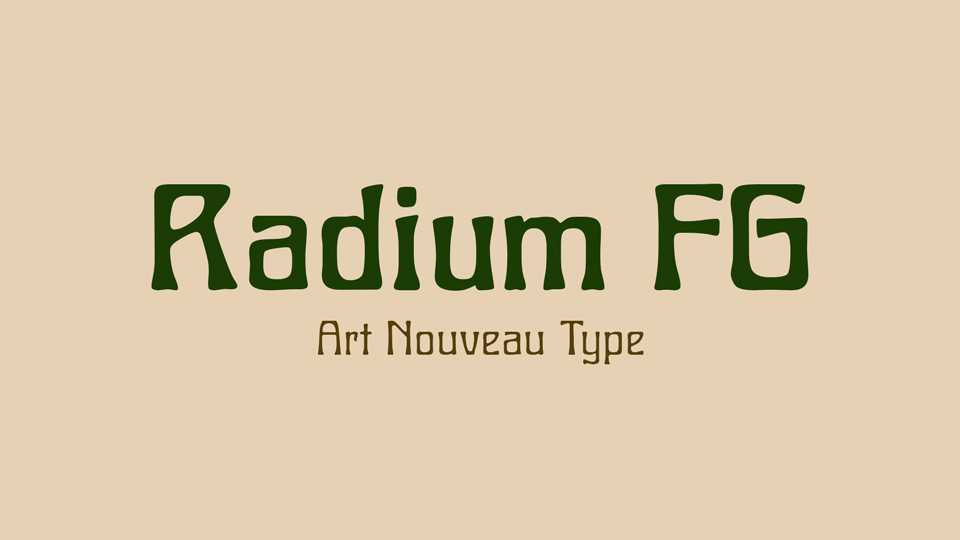
Download Radius FG font, a new digitization of the Art Nouveau hot-metal font “Radium”, published in 1905 by the German typefoundry Ludwig & Mayer.
Designer: Fontgrube AH